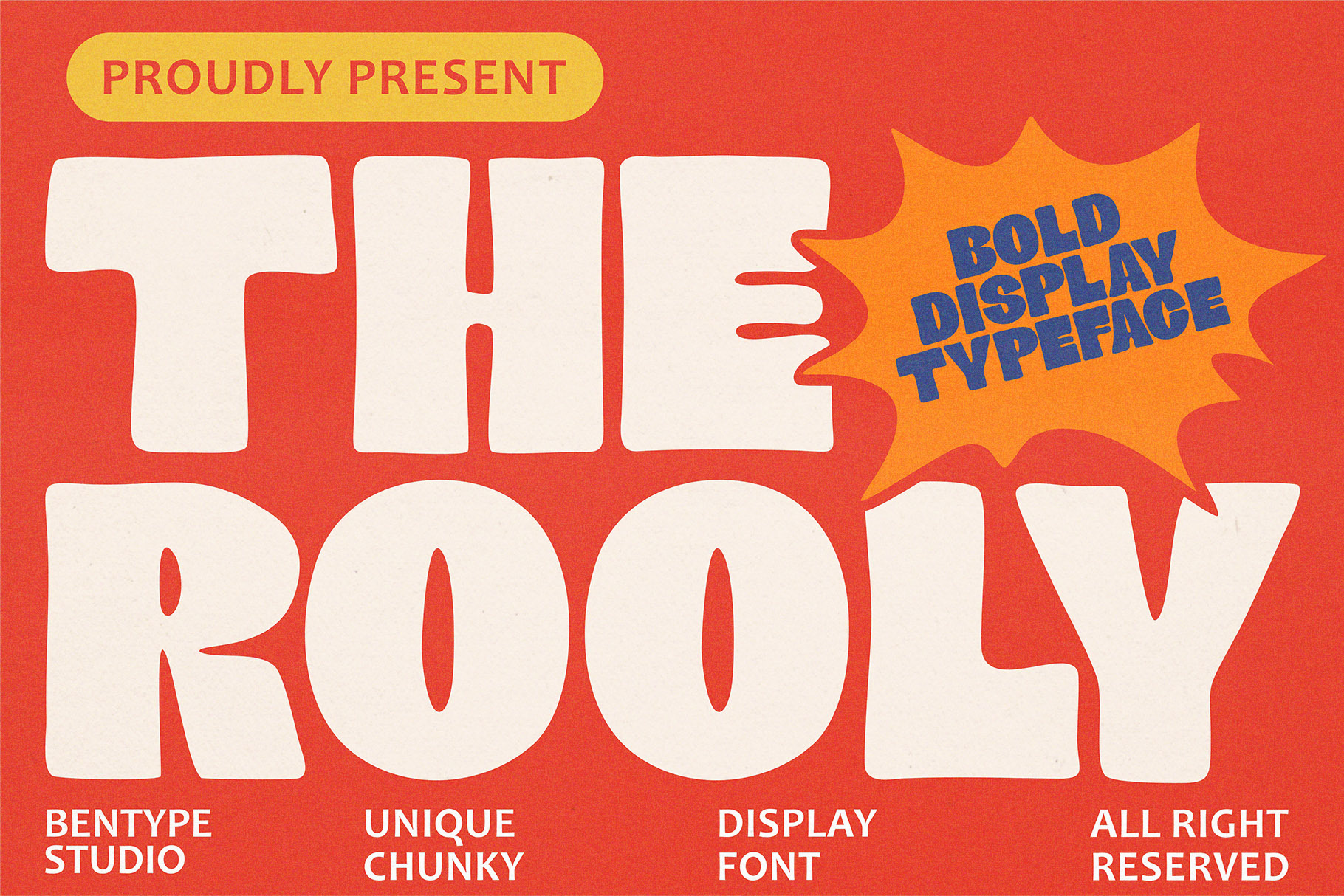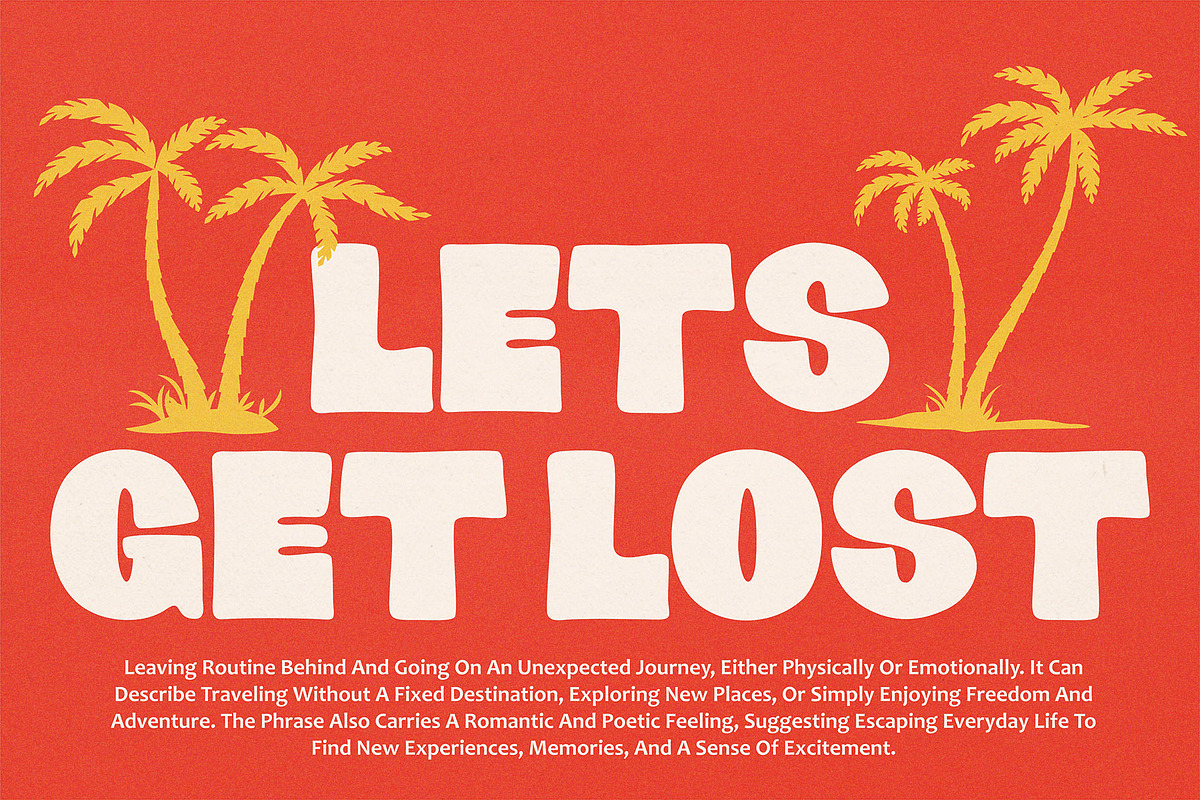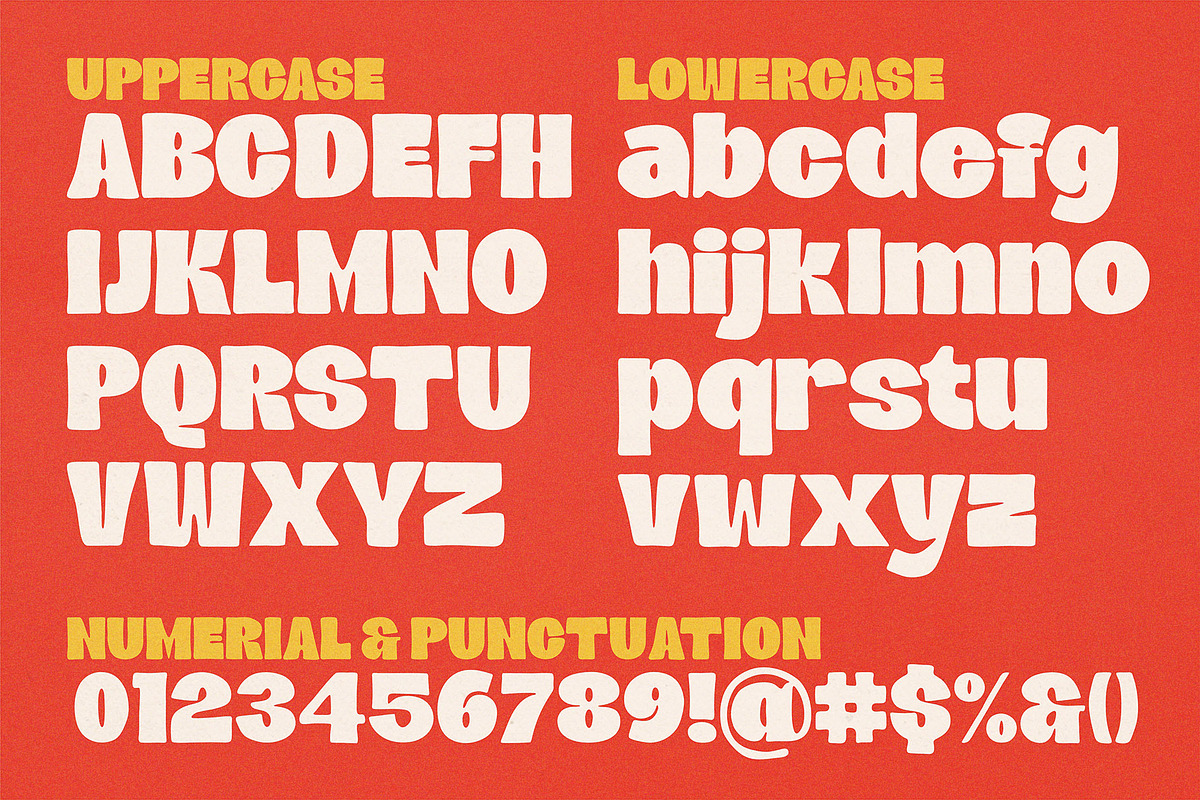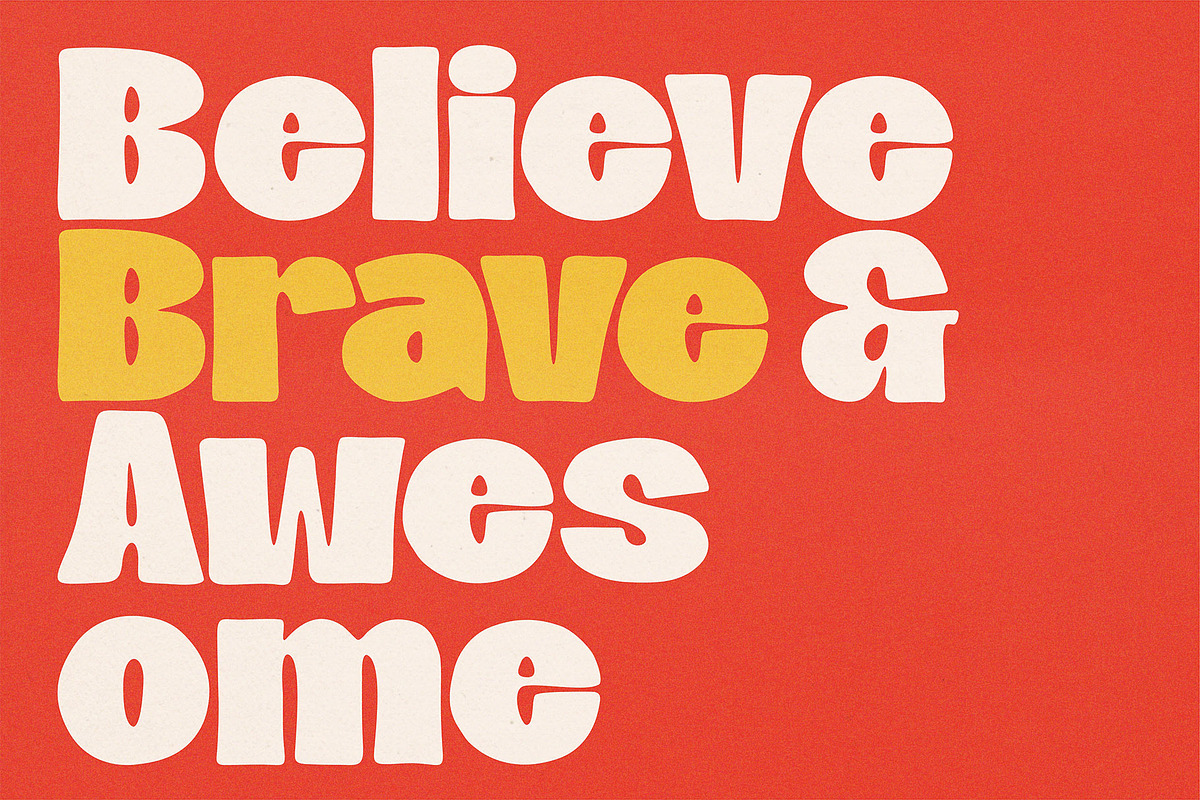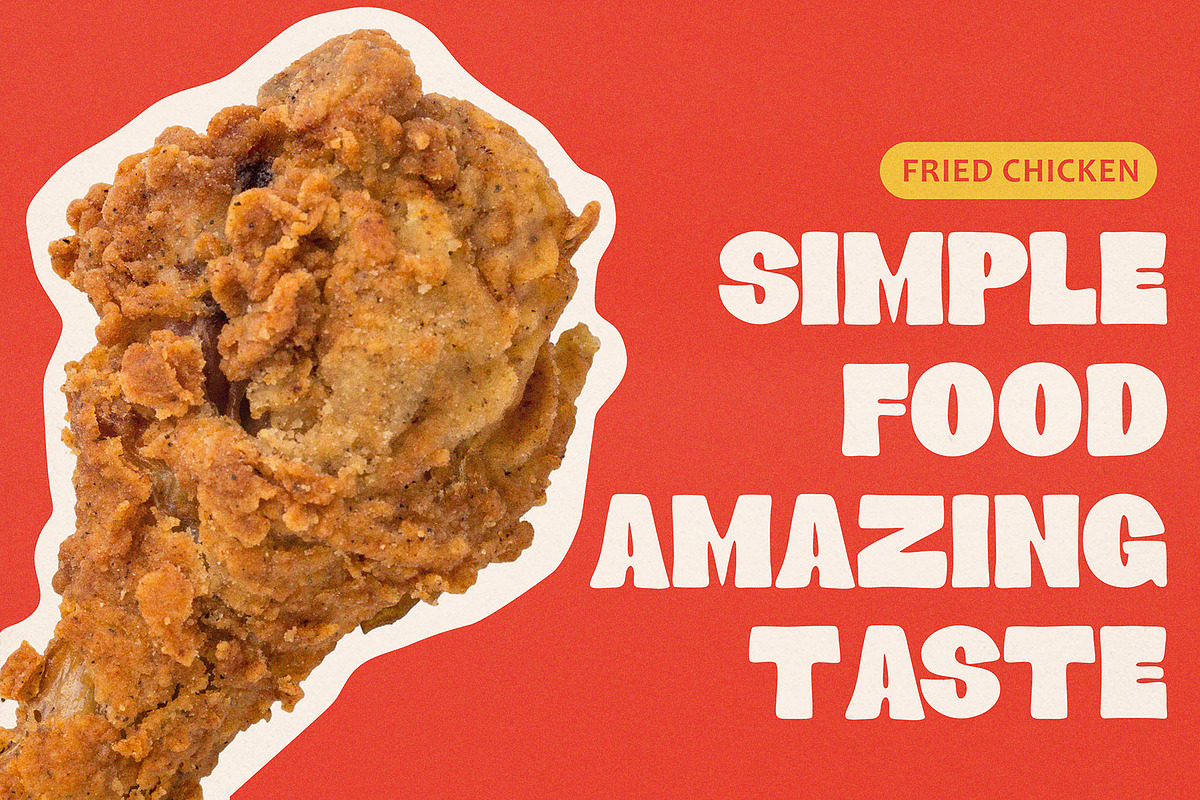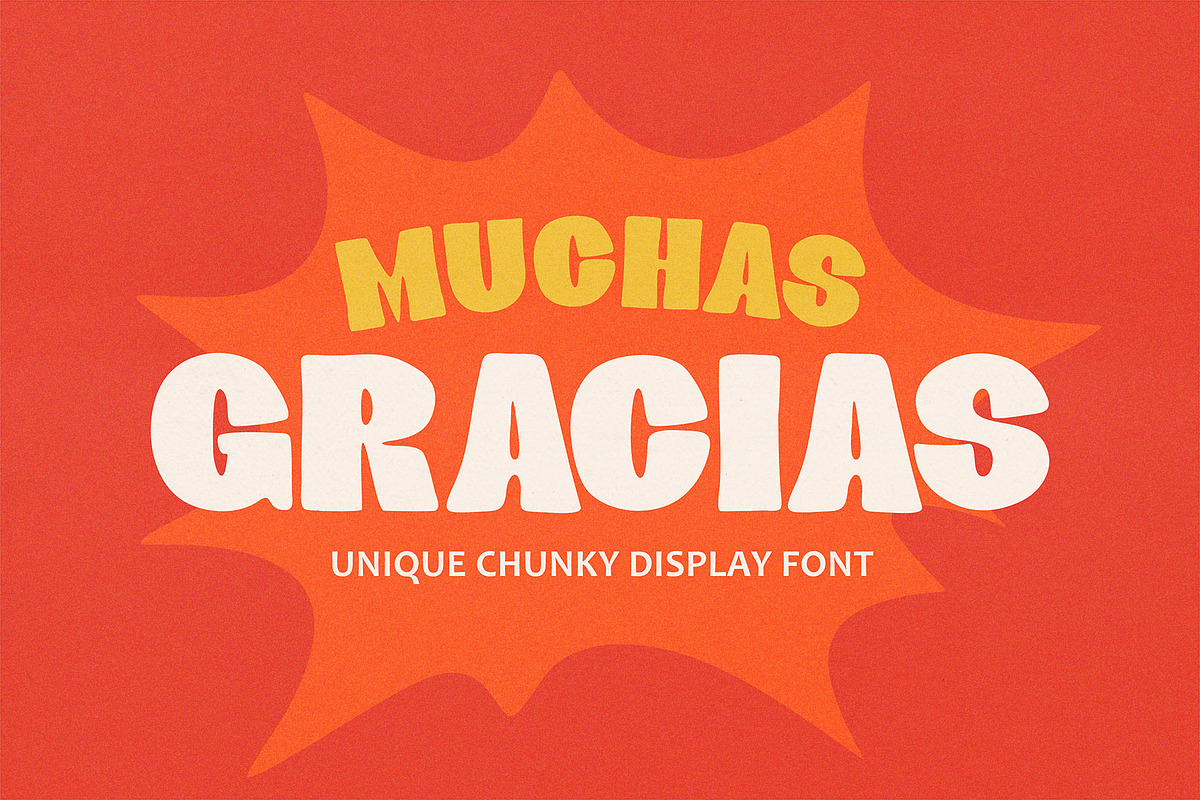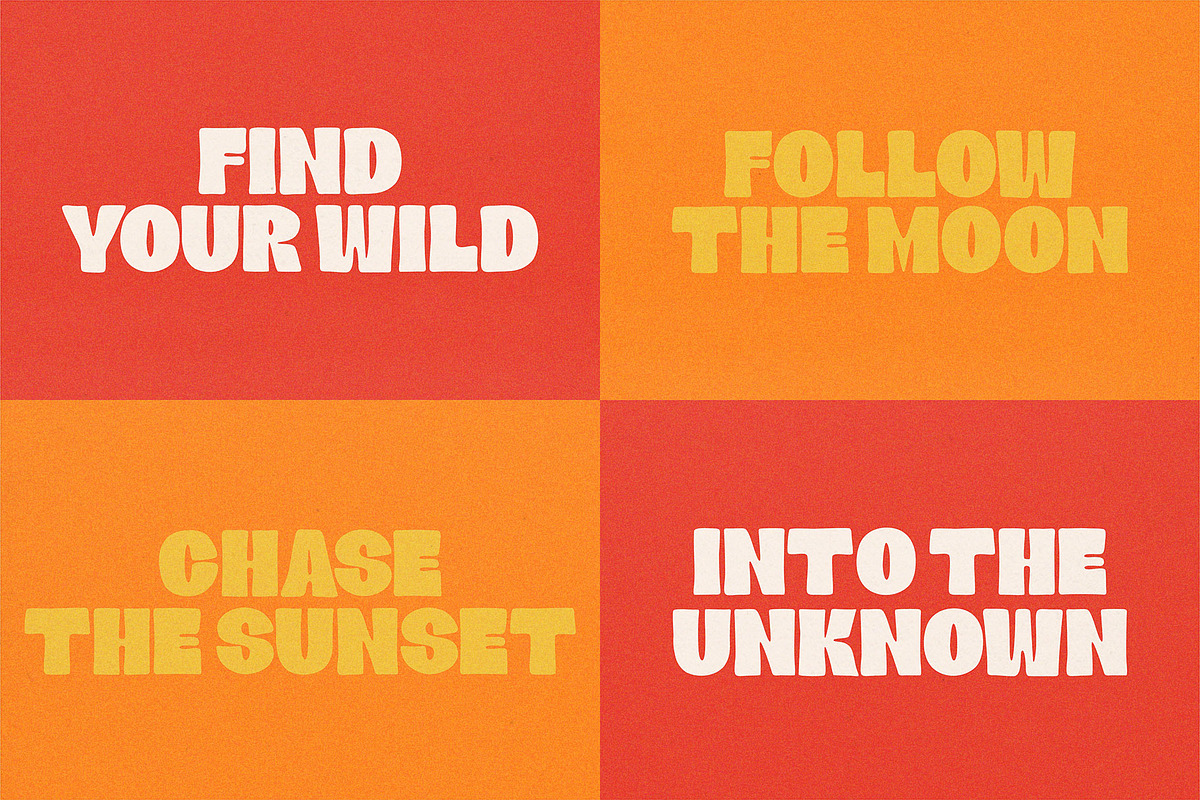
Rooly - Unique Chunky Display Font
Rooly - Unique Chunky Display Font features a bold retro playful style with thick, rounded letterforms full of character. Each letter has a unique shape with soft curves and slightly uneven proportions, creating a relaxed, fun, and vintage 70s-inspired vibe. This typeface is perfect for posters, food branding, festival designs, product packaging, and creative projects that want to express a cheerful, warm, and eye-catching look. Its strong personality makes it highly attention-grabbing while adding a stylish nostalgic touch.